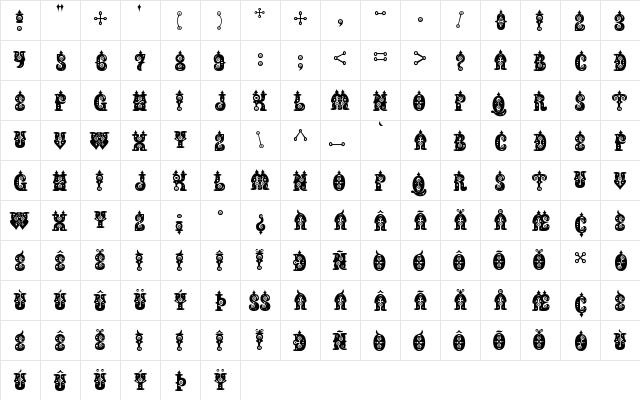
Buxotic Regular
Design Context for Buxotic Typeface
Buxotic is a composed and adaptable typeface that performs quietly and consistently across a wide range of design contexts.